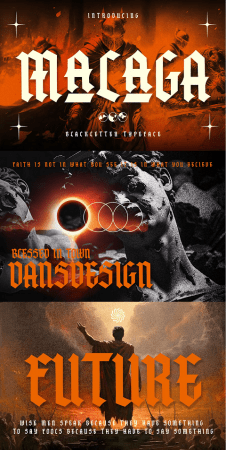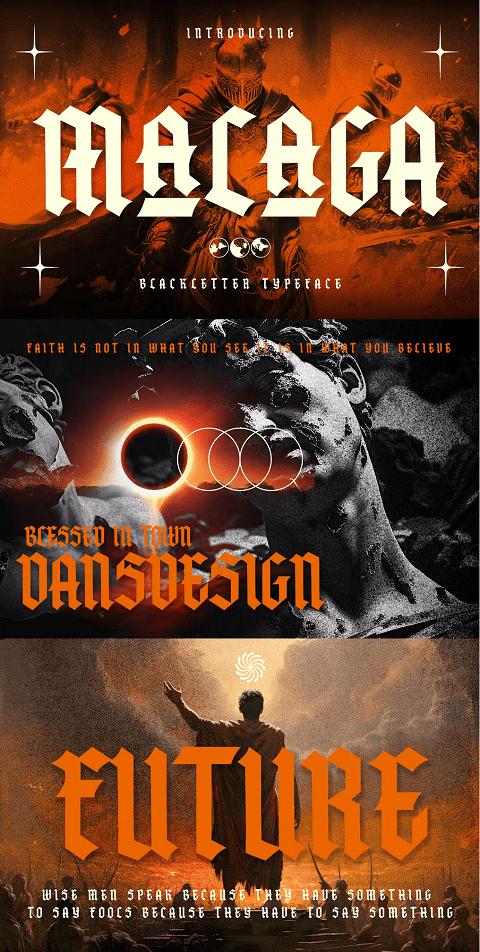
MALAGA Blackletter Typeface Font
MALAGA Blackletter Typeface Font a distinct, highly detailed, and chic Blackletter font. It would make a great choice for exquisite retro-urban designs, tattoo business branding, logos, vintage designs, movie, poster, apparel, illustration, and more.